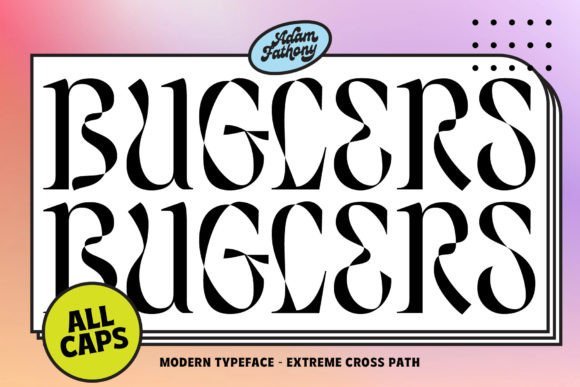
Breaking the Mold with Buglers Font
Have you ever stared at a blank page, waiting for the perfect font to spark your creativity? It’s that moment of serendipity when inspiration strikes, and the right font can elevate your design from ordinary to extraordinary.
Enter Buglers Font – an experimental serif typeface that defies conventions. With its striking style characterized by extreme path collisions, this font delivers a visually captivating experience that’s sure to turn heads. As a designer, you’ll appreciate the unique aesthetic it brings to your work, allowing you to push the boundaries of what’s possible with typography.
Buglers Font is more than just a font – it’s a tool for creative expression, waiting to be unleashed on your next design project. With its undulating letterforms and mesmerizing style, it’s an ideal choice for designers looking to add an extra layer of sophistication and visual interest to their work.
Buglers Font Key Features
- Font Style: Serif, Display Font, with a classic and elegant feel
- Unique Characteristics: Features intricate details, ornaments, and flourishes, making it perfect for formal and historical designs
Designer Review: Buglers Font
First off, I have to say that Buglers Font has some really cool features that caught my eye ✨. One of my favorite things about it is the variety of font styles and weights available, which makes it super versatile for different design projects. The font also has a unique, vintage feel to it, which can add a lot of character to your designs.
- Wide range of font styles and weights ✨
- Vintage, nostalgic feel ✨
However, there are some limitations to consider ⚠️. For one, the font can be a bit too ornate for some designs, which can make it difficult to read. Additionally, the font files are quite large, which can impact loading times and make it harder to work with.
- Can be too ornate for some designs ⚠️
Overall, I think Buglers Font is a great choice for designers who want to add a touch of nostalgia and elegance to their projects. Just be aware of the potential limitations and make sure it’s the right fit for your design needs.
Buglers Font is ideal for:
– Creating vintage-inspired designs
– Adding a rustic touch to your text
– Designing posters, flyers, and brochures
– Creating unique and eye-catching headings